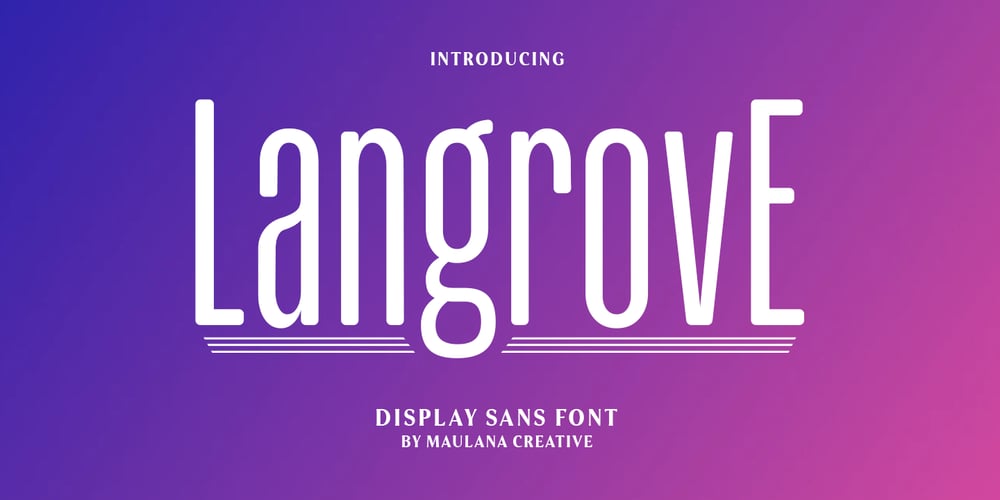
MC Langrove
MC Langrove font
MC Langrove Font Family was designed by Gilang Maulana and published by Maulana Creative. MC Langrove contains 1 styles and family package options. Langrove is a modern tall sans serif font. With medium stroke, fun character with a bit of ligatures and alternates. To give you an extra creative work. Langrove font support multilingual more than 100+ language. This font is good for logo design, Social media, Movie Titles, Books Titles, a short text even a long text letter and good for your secondary text font with script or serif. Make a stunning work with Langrove font.Cheers, Maulana Creative